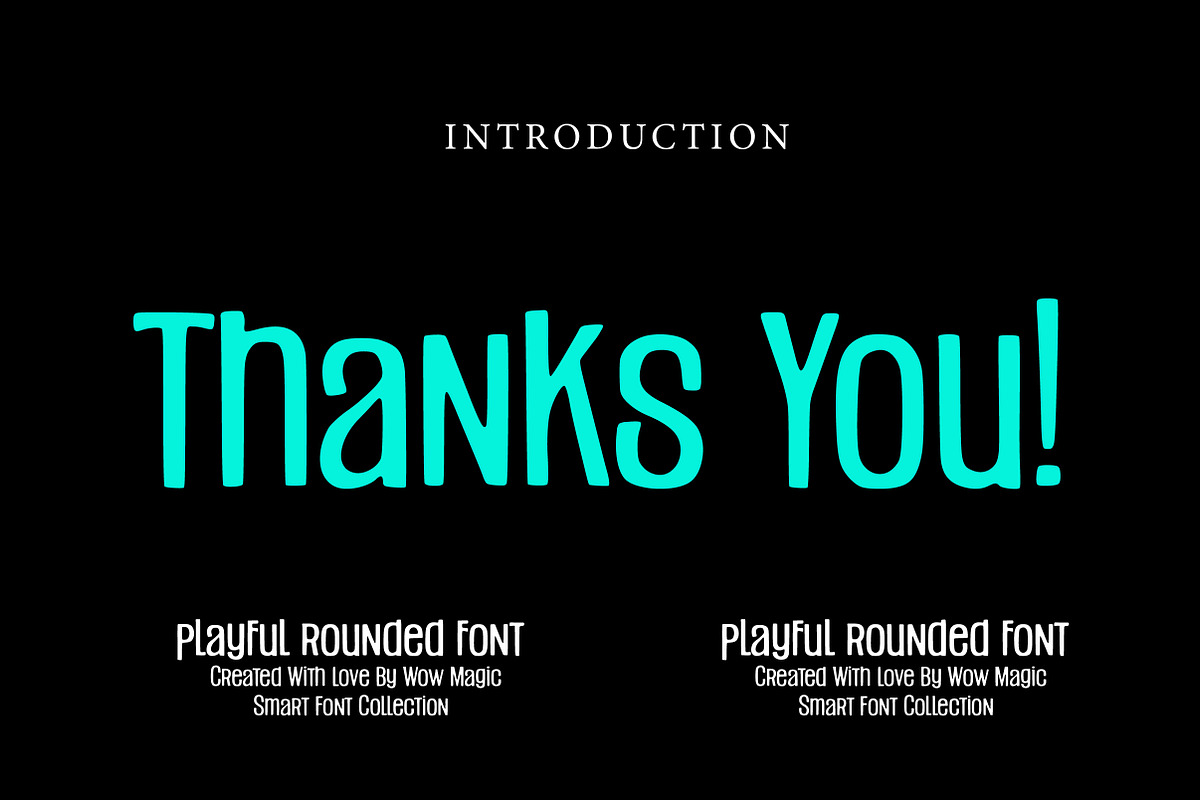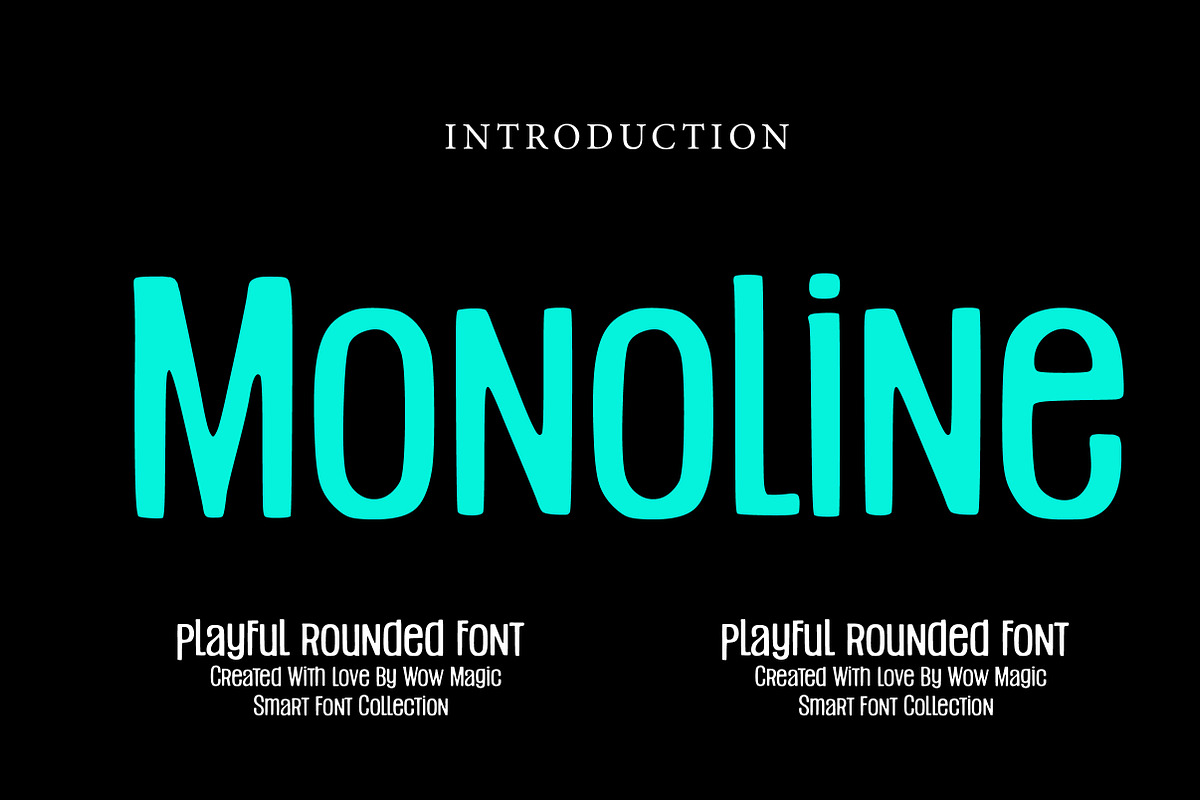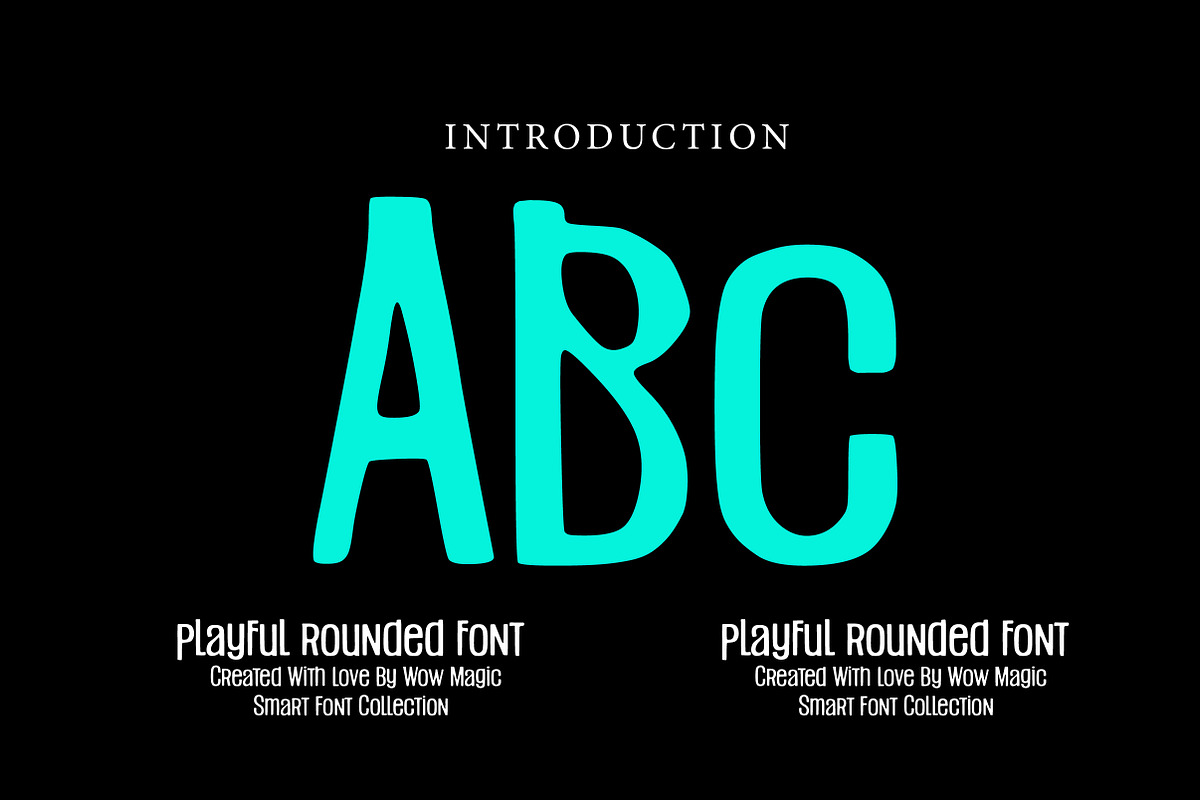
Monoline
Monoline is a sleek and modern monoline display font designed with uniform stroke thickness and smooth letterforms. Its simple yet stylish structure creates a balanced and minimalist typographic appearance that works beautifully in modern design.
The consistent line weight gives the font a clean and professional feel, making it ideal for logos, branding, posters, packaging, social media graphics, and digital design projects. Its contemporary style allows it to fit perfectly in both creative and corporate design environments.
Whether you're creating modern brand identities, minimalist posters, packaging designs, or stylish social media visuals, Monoline provides a clean and elegant typographic solution that stands out with simplicity and clarity.